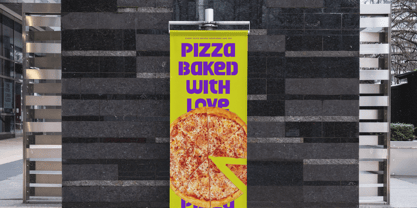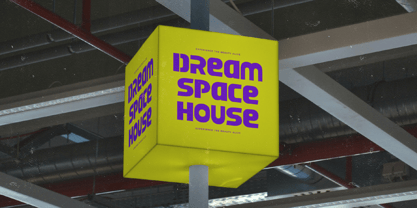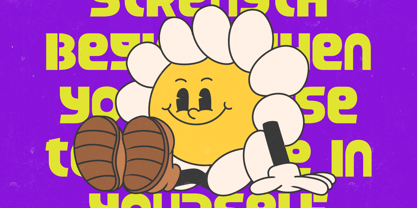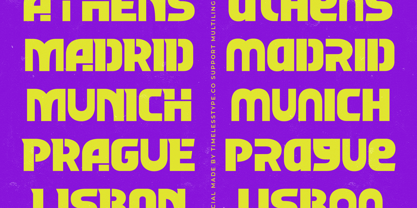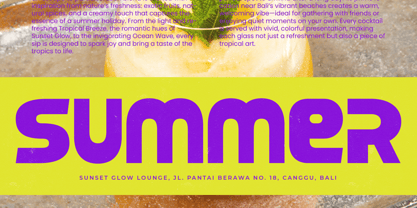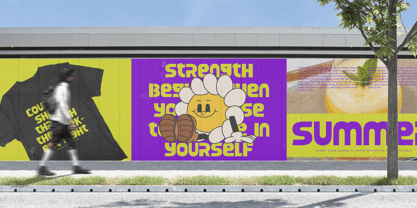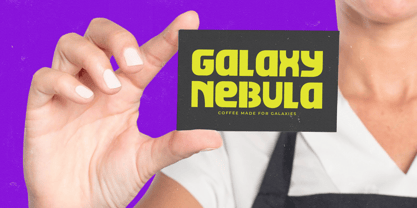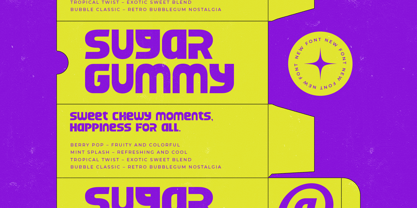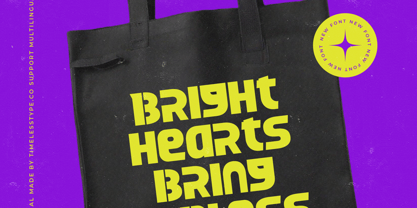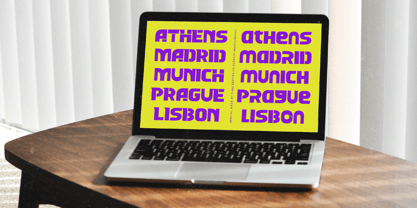
Mafteis
by Timelesstype Studio
The Mafteis Font Family was designed by Heru Utama Putra and published by Timelesstype Studio. Mafteis contains 2 styles and family package options.
Mafteis - Modern Display Sans Serif , from Timelesstype , Suitable for any projects such as: logos, branding projects, homeware designs, product packaging, mugs, quotes, posters, shopping bags, t-shirts, book covers, name card, invitation cards, greeting cards, label, photography, watermark, special events, and all your other luxury and beautiful projects that need a Luxury Serif taste.